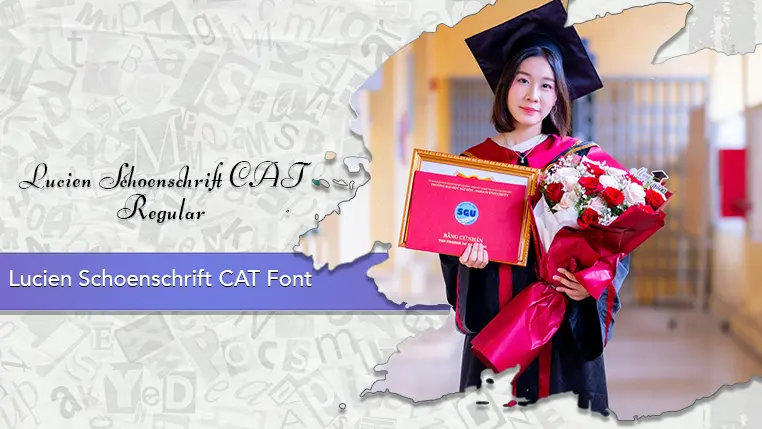
The Lucien Schoenschrift CAT font family may be ideal for you if you enjoy working on an artistic design project. The lively, expressive look of this typeface, which was created by Peter Wiegel, makes it ideal for Logos and Branding. Its polished, calligraphic style makes it an excellent choice for wedding invitations, diplomas, awards, and other official documents where a classic and dignified look is desired. It can be used effectively for headlines in print and digital media to add a touch of timeless class to a design, as long as the text is short and legible. and other light-hearted visual projects.
Regular are the one primary font styles of the Lucien Schoenschrift CAT font family. You may build dynamic, visually appealing text layouts with the distinct flair that each style offers. With crisp, readable lines and a relaxed tone.